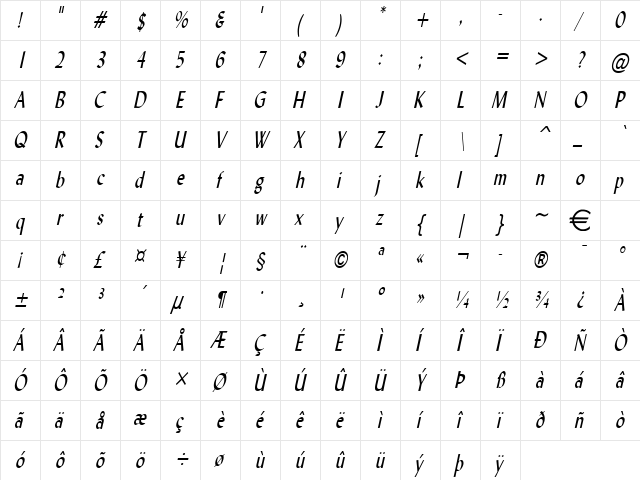
LyndaThin Italic
Design Context for LyndaThin Typeface
LyndaThin offers clean, dependable letterforms without strong stylistic allegiance, making it a practical choice for designers who need flexibility. The slanted form adds forward momentum and visual energy. Its slender proportions lend an understated elegance to any composition.
Pro Tip: Try LyndaThin for annotation and caption copy alongside an upright companion — the contrast in angle creates a dynamic but ordered typographic system.